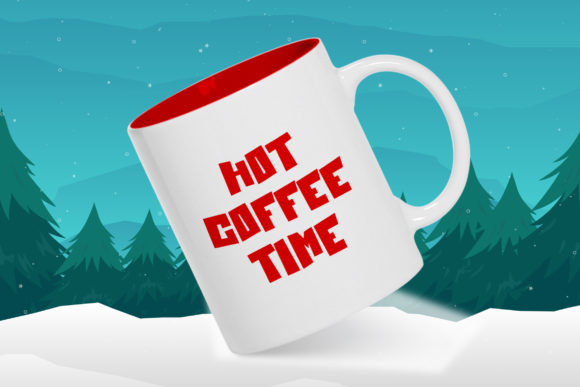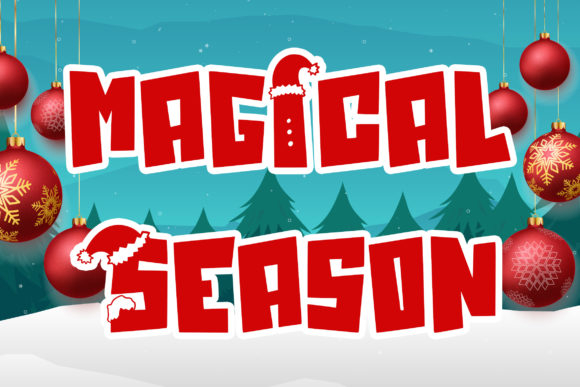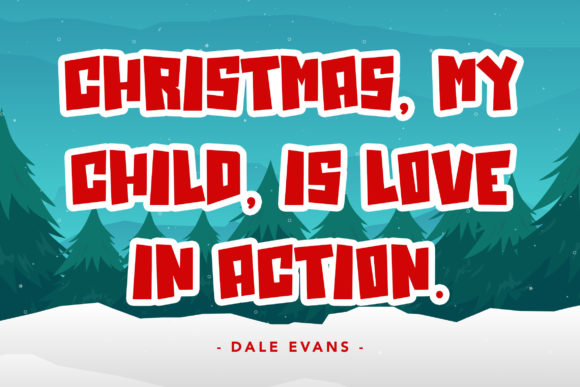
Introduction to Santa Day Font
Do you ever get that feeling when you’re brainstorming ideas for a creative project and suddenly, a spark of inspiration hits you? Maybe it’s a burst of color, a quirky design element, or a font that perfectly captures the essence of your vision. For me, that moment came when I stumbled upon the enchanting Santa Day Font – a high-quality display font that screams festive fun!
As a designer, I can attest to the value of having access to a versatile design resource like Santa Day Font. Whether you’re working on a logo, branding materials, or marketing campaigns, this font’s transparent background and bold, playful characters make it an absolute game-changer. And the best part? It’s available for free download, making it a must-have for any creative project that needs to stand out from the crowd.
Get ready to unleash your creativity with the magical Santa Day Font – the perfect companion for your next design adventure!
Key Features of Santa Day Font
- High-quality design with a transparent background, perfect for creative projects
- Features a large character set, including uppercase and lowercase letters, numbers, and special characters
- Resolution-independent, ensuring crisp and clear typography at any size or resolution
- Designed to be versatile and easy to use, making it an ideal choice for a wide range of creative projects
Honest Review: Santa Day Font
As a designer, I’m always on the lookout for unique and high-quality design resources to elevate my creative projects. Recently, I stumbled upon the Santa Day Font, and I must say it’s a delightful addition to my collection.
What works well about this font is its playful, whimsical feel, perfect for holiday-themed projects. The transparent background and bold lines make it easy to customize and use in various design contexts. ✨ I love how versatile it is, from social media graphics to packaging design.
Some potential limitations to consider are:
- Limited style options: The font is quite straightforward and lacks additional styles, such as italics or bold versions.
Overall, the Santa Day Font is a fun and engaging design resource that’s perfect for non-commercial projects. If you’re looking for a high-quality, free font to add some holiday cheer to your designs, I’d definitely recommend giving it a try. Just be aware of the limitations and use it accordingly.
Tips for Getting the Most Out of the Santa Day Font
For a transparent background, use the font on a layer with a transparent background or use a design software that supports transparent backgrounds. Experiment with different font sizes and styles to create a unique and eye-catching design. You can also use the font in combination with other design elements, such as images and graphics, to create a cohesive and festive look.
The Santa Day Font is perfect for a variety of creative projects, including holiday cards, party invitations, and social media graphics. You can also use the font in combination with other design elements to create a festive and fun design for your website or blog.